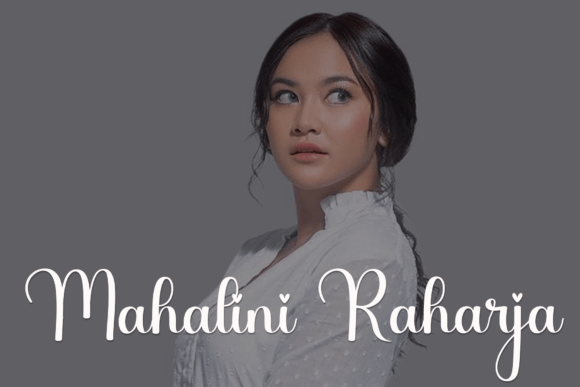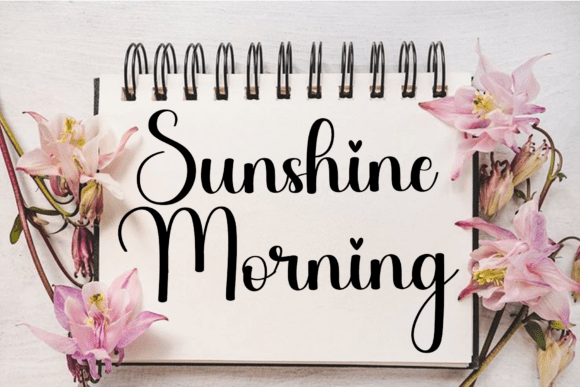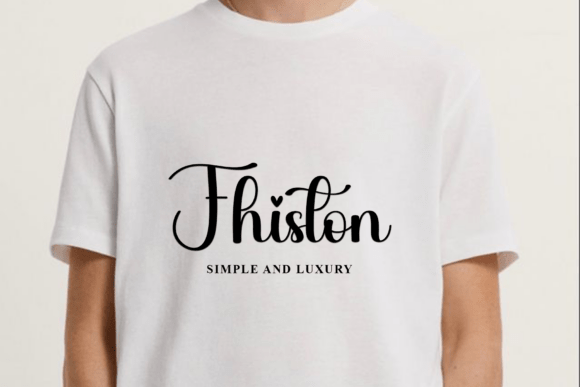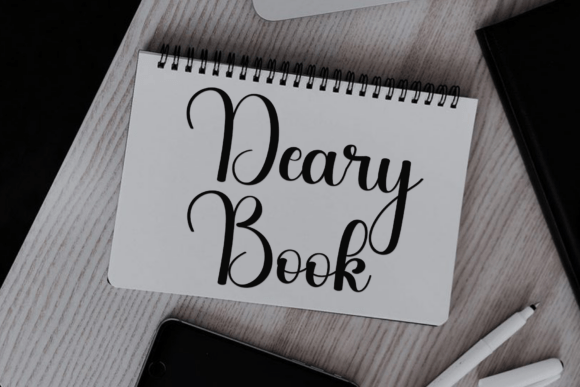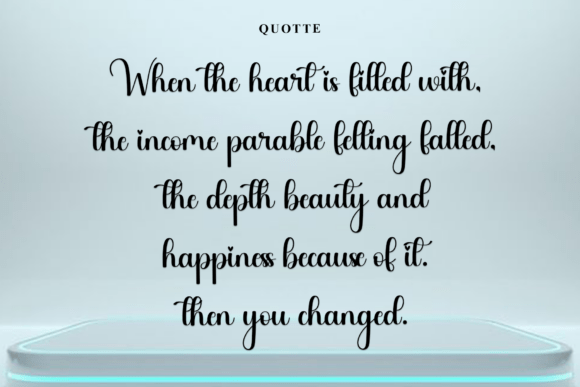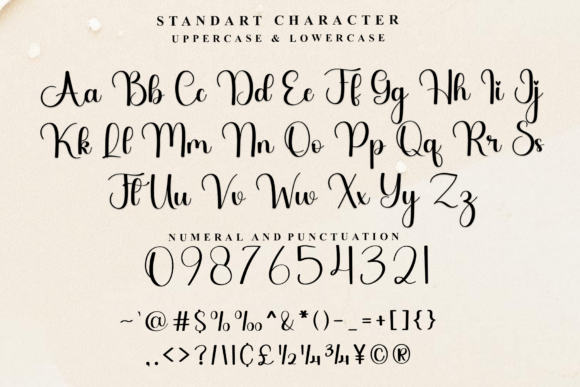
Have you ever stared at a blank canvas, waiting for inspiration to strike? The silence is broken by a sudden rush of ideas, and your creativity flows freely. This is the moment when the right font can make all the difference. Introducing the Bunny Font, a beautiful and eye-catching typeface designed to capture your audience’s attention.
Bunny Font is more than just a pretty face – it’s a versatile tool for designers looking to add a touch of uniqueness to their projects. With its soft, distinctive strokes, this font is perfect for crafts, design projects, and other creative endeavors. Whether you’re working on a Windows or open-source platform, the Bunny Font is compatible with a range of applications, making it an ideal choice for designers of all levels.
What sets Bunny Font apart is its ability to enhance your designs, making them appealing to a wide range of audiences across different artistic and creative fields. Its natural style and unique character make it a valuable addition to any designer’s toolkit.
Bunny Font Key Features
- Unique Characteristics: Bunny Font features a playful and whimsical design, with intricate details and curved lines that evoke a sense of cuteness and charm.
- Kerning and Ligatures: Bunny Font includes advanced kerning and ligature pairs, ensuring smooth and even spacing between characters.
Bunny Font Review
Overall, I think the Bunny Font is a cute and playful font that can add a touch of whimsy to your designs. ✨ It’s perfect for children’s books, nursery decor, or any project that needs a lighthearted feel.
- ✨ Unique and quirky design: The Bunny Font is full of character and can add a lot of personality to your designs.
- ✨ Versatile: It can be used for a variety of projects, from invitations to signage.
- ✨ Easy to read: Despite its playful design, the font is still easy to read and understand.
However, there are some limitations:
- ⚠️ Limited font sizes: The font may not be suitable for large font sizes, as it can become difficult to read.
- ⚠️ Not ideal for formal projects: The Bunny Font is best suited for casual, creative projects and may not be the best choice for formal or professional designs.
Overall, I think the Bunny Font is a great choice for designers who want to add a touch of playfulness to their projects. Just be aware of its limitations and use it accordingly.
Getting the Most Out of Bunny Font
To get the most out of the Bunny Font, use it for whimsical and playful designs, such as children’s party invitations or Easter-themed graphics. Experiment with different font sizes and colors to create a unique look.
The Bunny Font is ideal for:
- Easter-themed graphics and illustrations
- Playful social media posts and advertisements
Comparison to Bunny Font: While Bunny Font is a cute and playful font, Playfair Display is more sophisticated and luxurious. Playfair Display is ideal for designs that require a touch of elegance and refinement, whereas Bunny Font is better suited for casual and playful designs.
Comparison to Bunny Font: Great Vibes has a more energetic and dynamic feel compared to Bunny Font, which is more laid-back and cute. Great Vibes is ideal for designs that require a sense of excitement and enthusiasm, whereas Bunny Font is better suited for designs that require a more relaxed and playful tone.
What is the recommended font size for optimal readability with Bunny Font?
The recommended font size for optimal readability with Bunny Font is between 12-14 points. However, this may vary depending on the specific application and design requirements. It’s always a good idea to test the font at different sizes to ensure it looks its best.